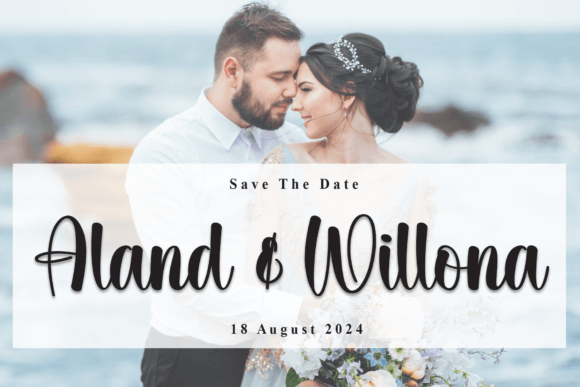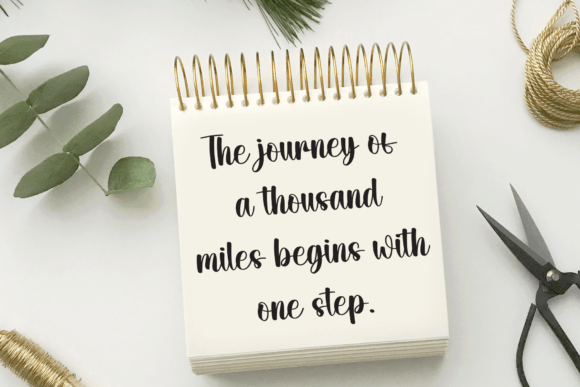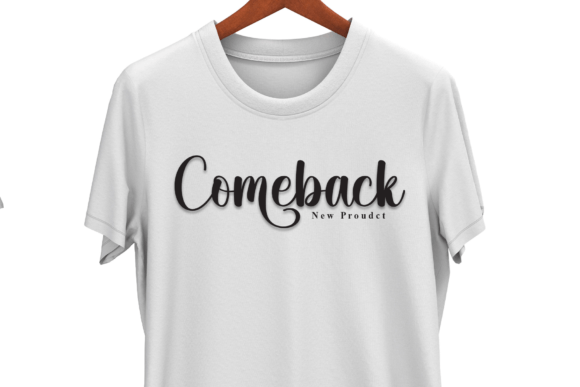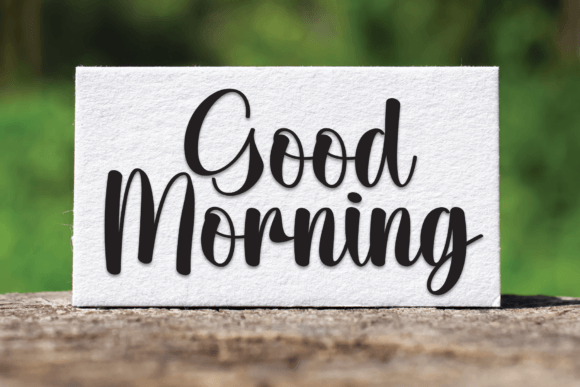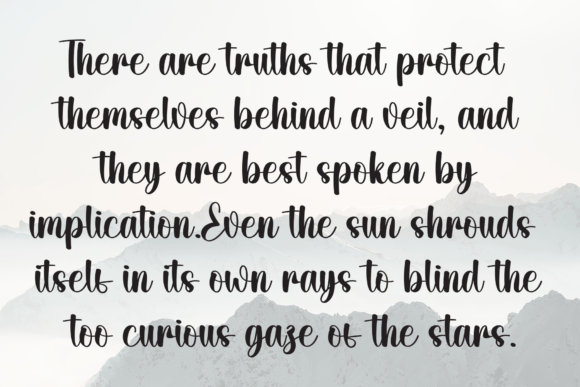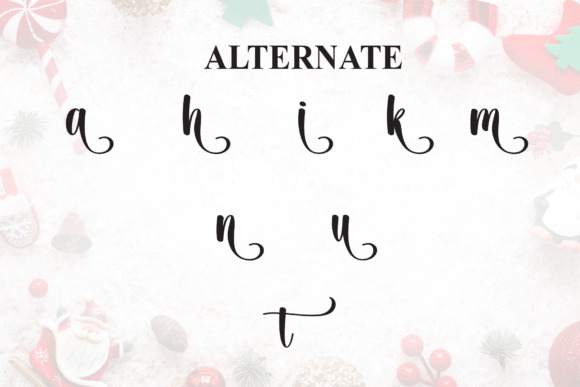
Introduction to Christmas Graduate Font
As a designer, there’s nothing quite like the thrill of brainstorming a new creative project. The blank page stares back at you, a challenge waiting to be overcome. But then, it happens – a spark of inspiration strikes, and the project begins to take shape. For many of us, it’s the perfect moment to break out our trusty design resource: a font that’s as beautiful as it is functional. If you’re looking for a high-quality font that will elevate your designs to the next level, look no further than the Christmas Graduate Font.
This lovely and timeless handwritten font is the perfect choice for creating eye-catching logos, branding, and quotes. With its unique and beautiful touch, every letter comes alive, making your design truly stand out. Whether you’re working on a free download or a paid project, the Christmas Graduate Font is a valuable asset to have in your design arsenal.
- This unique font is specifically designed for the Christmas season, making it perfect for holiday-themed projects and designs.
Honest Review: Christmas Graduate Font
I recently stumbled upon the Christmas Graduate Font while searching for a unique design resource for my holiday-themed creative project. At first glance, I was impressed by its festive and elegant design.
The font is perfect for any winter-themed project, from Christmas cards to social media graphics. It’s also a great addition to any design portfolio, showcasing your creativity and attention to detail.
- Festive and elegant design
⚠️ One limitation is that the font is only available in a limited range of styles, which may limit its versatility. Additionally, some users may find the font to be a bit too festive, making it difficult to use for non-holiday projects.
Overall, I’m impressed with the Christmas Graduate Font and would recommend it to designers looking for a unique and high-quality design resource. With a little creativity, this font can add a touch of magic to any project.
Christmas Graduate Font
Use the Christmas Graduate Font in combination with a transparent background to create a high-quality design. You can also experiment with different font sizes and styles to add a creative touch to your project.
The Christmas Graduate Font is a great design resource for any creative project, especially those related to Christmas and graduation. You can use it to create invitations, cards, and other holiday-themed designs.